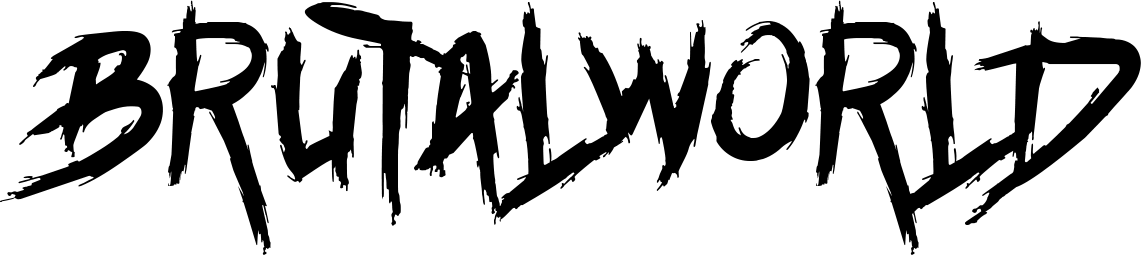
Brutalworld Font
Maybe you are a graphic designer who is confused among dozens of fonts and does not know which font to use to design a poster or brochure for young people. Brutalworld is a death metal font that does not support lowercase letters.
The creative design of this 80s brush font attracts the attention of young people and teenagers and conveys a sense of excitement to them. Brutalworld is perfect for designing video games and movie posters.